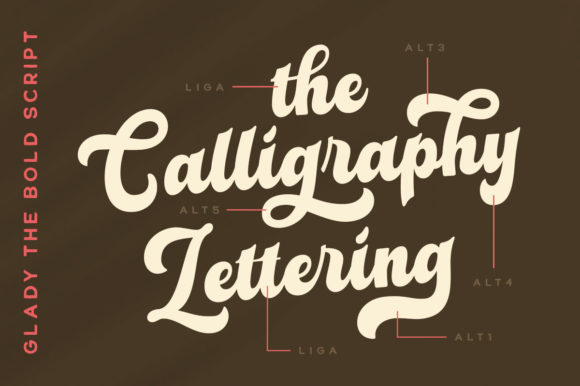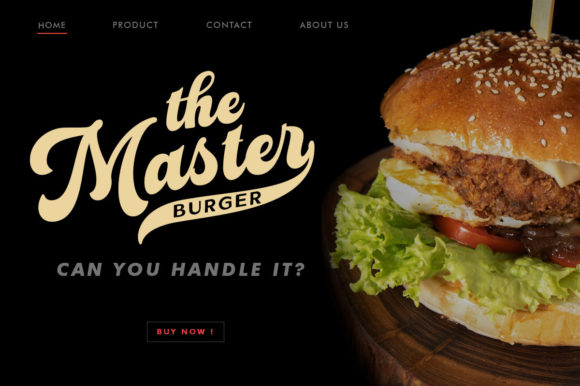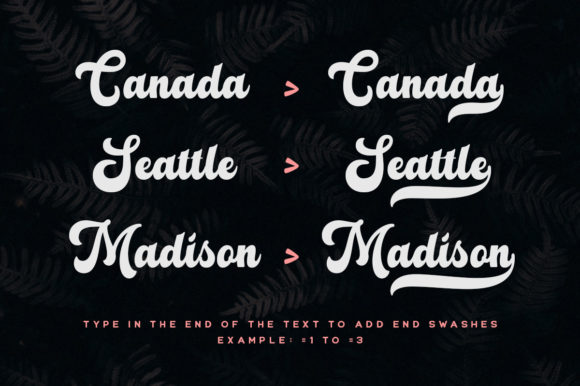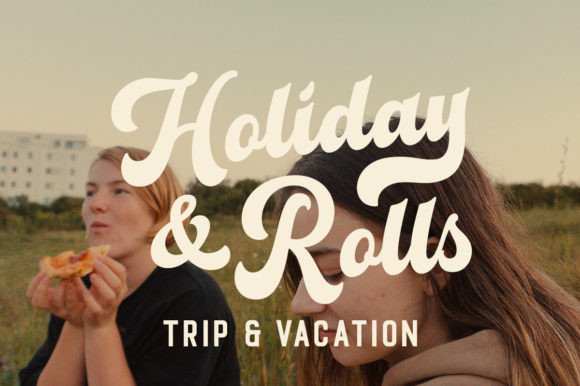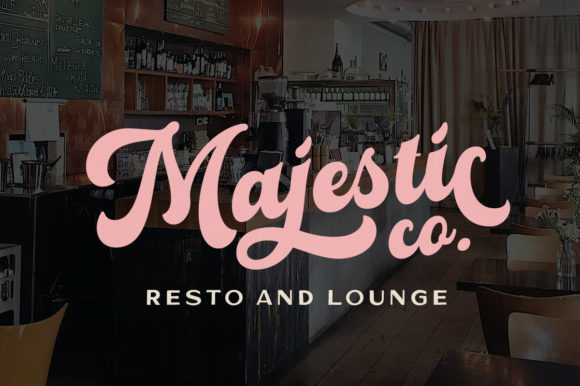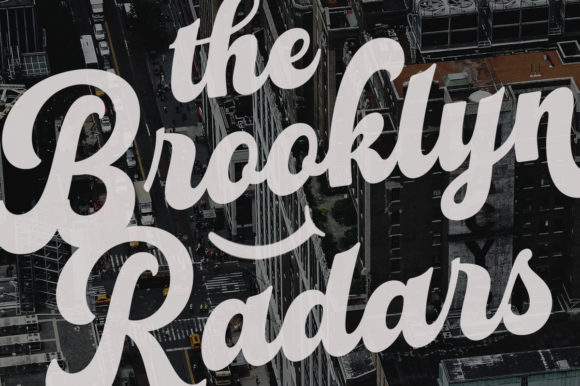
Introducing Glady Font: The Ultimate Bold Handwritten Font for Stunning Headlines and Logotypes
Are you tired of using the same old fonts for your design projects? Do you want to add a touch of personality and style to your headlines and logotypes? Look no further than Glady Font, a cursive, thick lettered, and bold handwritten font that’s perfect for designers and crafters alike. In this article, we’ll dive into the features and benefits of Glady Font, and explore how it can elevate your designs to the next level.
A Font that Exudes Confidence and Dynamism
Glady Font is a bold and confident font that’s designed to make a statement. Its thick, cursive letters are carefully crafted to give your headlines and logotype projects a stylish touch that’s hard to ignore. Whether you’re designing a logo, a poster, or a social media graphic, Glady Font is the perfect choice for anyone looking to add a dash of personality to their designs.
One of the key features of Glady Font is its dynamic feel. The font is designed to convey a sense of energy and movement, making it perfect for designs that need to grab attention and hold it. Whether you’re creating a bold headline or a eye-catching logotype, Glady Font is sure to make a lasting impression.
Adding Nostalgic Character to Your Designs
Glady Font is not just a bold and confident font – it’s also a font that’s rich in nostalgic character. The font’s cursive letters and classic feel evoke a sense of nostalgia and timelessness, making it perfect for designs that need to convey a sense of tradition and heritage.
Whether you’re designing a logo for a vintage-inspired brand or creating a poster for a retro-themed event, Glady Font is the perfect choice. The font’s nostalgic character will add a touch of warmth and personality to your designs, making them stand out from the crowd.
One of the best things about Glady Font is that it’s PUA encoded, which means you can access all of the glyphs and swashes with ease. PUA (Private Use Area) encoding allows designers to access a wide range of characters and glyphs that are not available in standard fonts.
With Glady Font, you can easily access a range of alternative characters, swashes, and ligatures that will help you take your designs to the next level. Whether you’re a professional designer or a DIY crafter, Glady Font’s PUA encoding makes it easy to get the most out of your font.
Glady Font is perfect for designers and crafters who want to add a touch of personality and style to their projects. Whether you’re designing a logo, a poster, or a social media graphic, Glady Font is a versatile font that can be used for a wide range of design projects.
For designers, Glady Font is a great choice for clients who want a bold and confident look. The font’s dynamic feel and nostalgic character make it perfect for designs that need to grab attention and convey a sense of tradition and heritage.
For crafters, Glady Font is a great choice for anyone who wants to add a personal touch to their projects. Whether you’re creating handmade cards, scrapbooking pages, or DIY signs, Glady Font is a beautiful font that will add a touch of personality and style to your designs.
In conclusion, Glady Font is a bold and confident font that’s perfect for designers and crafters who want to add a touch of personality and style to their projects. With its dynamic feel, nostalgic character, and PUA encoding, Glady Font is a versatile font that can be used for a wide range of design projects.
Whether you’re designing a logo, a poster, or a social media graphic, Glady Font is a great choice for anyone who wants to make a statement. So why settle for a boring, generic font when you can use Glady Font to add a touch of style and personality to your designs?